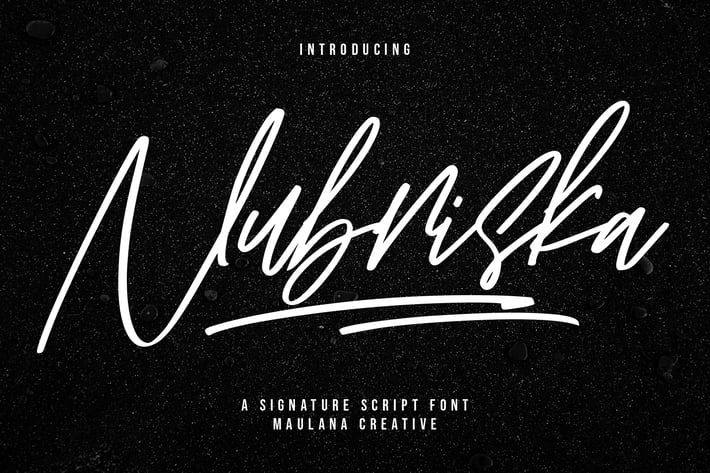
Nubriska Signature Script Font
Nubriska is an expressive signature script font. With bold contrast stroke, fun character with a bit of ligatures and swashes. To give you an extra creative work. Nubriska font support multilingual more than 100+ language. This font is good for logo design, Social media, Movie Titles, Books Titles, a short text even a long text letter and good for your secondary text font with sans or serif. Make a stunning work with Nubriska font.